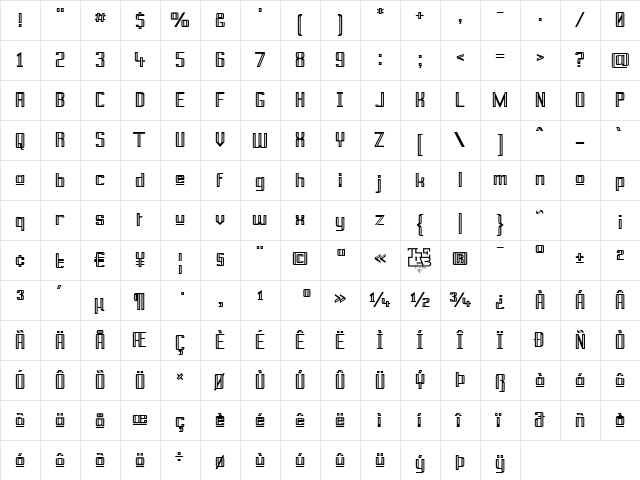
Prussian Brew Upper Regular
Design Context for Prussian Brew Upper Typeface
Prussian Brew Upper offers clean, dependable letterforms without strong stylistic allegiance, making it a practical choice for designers who need flexibility.